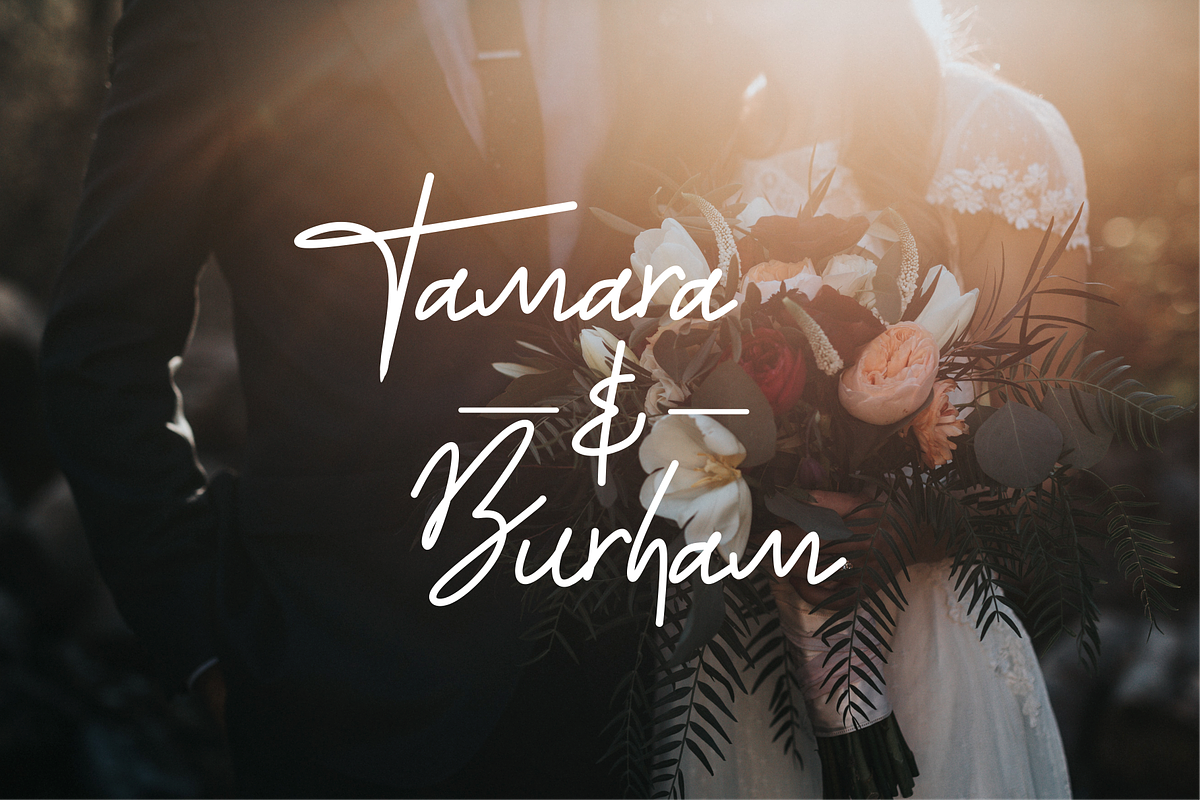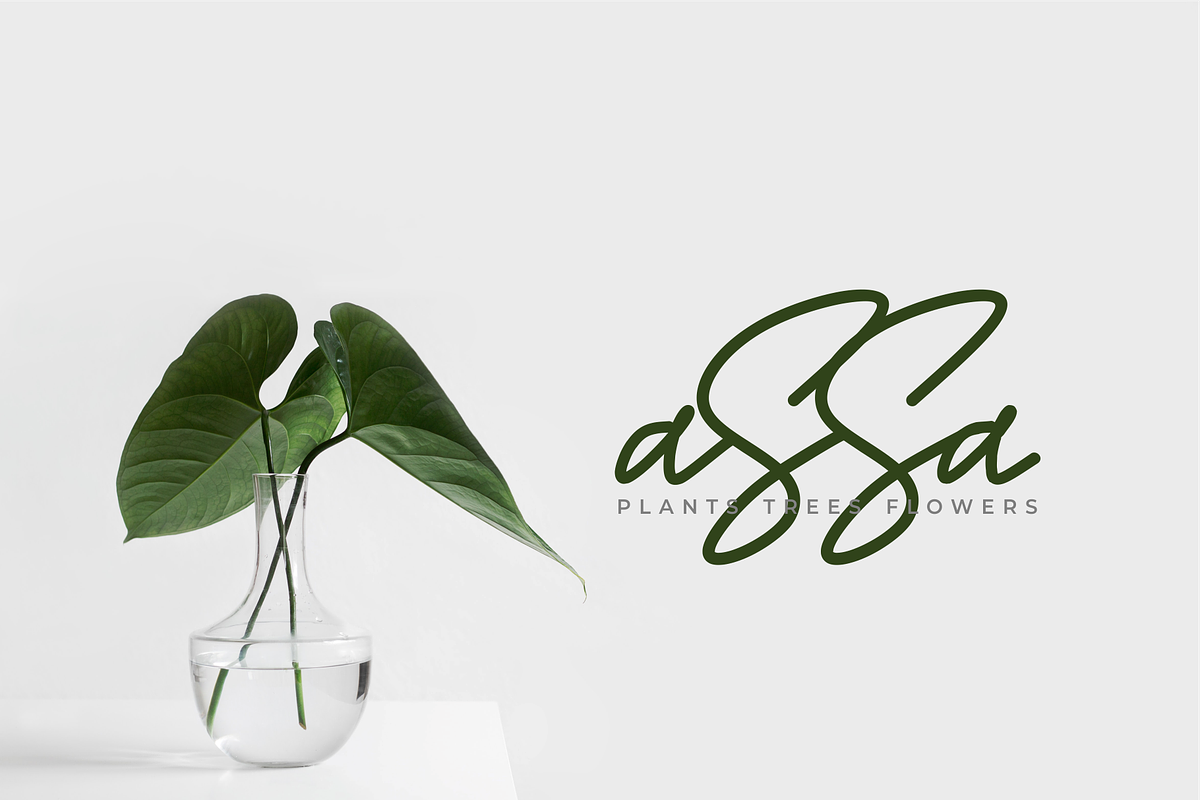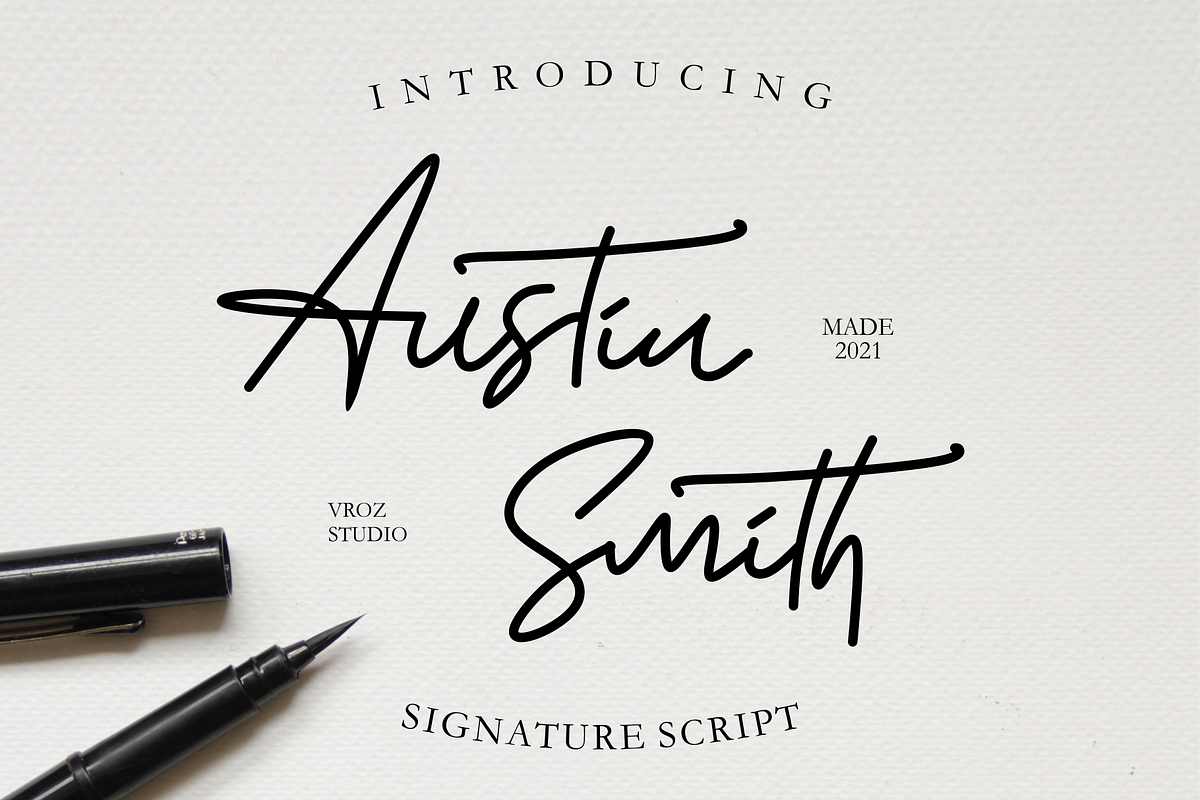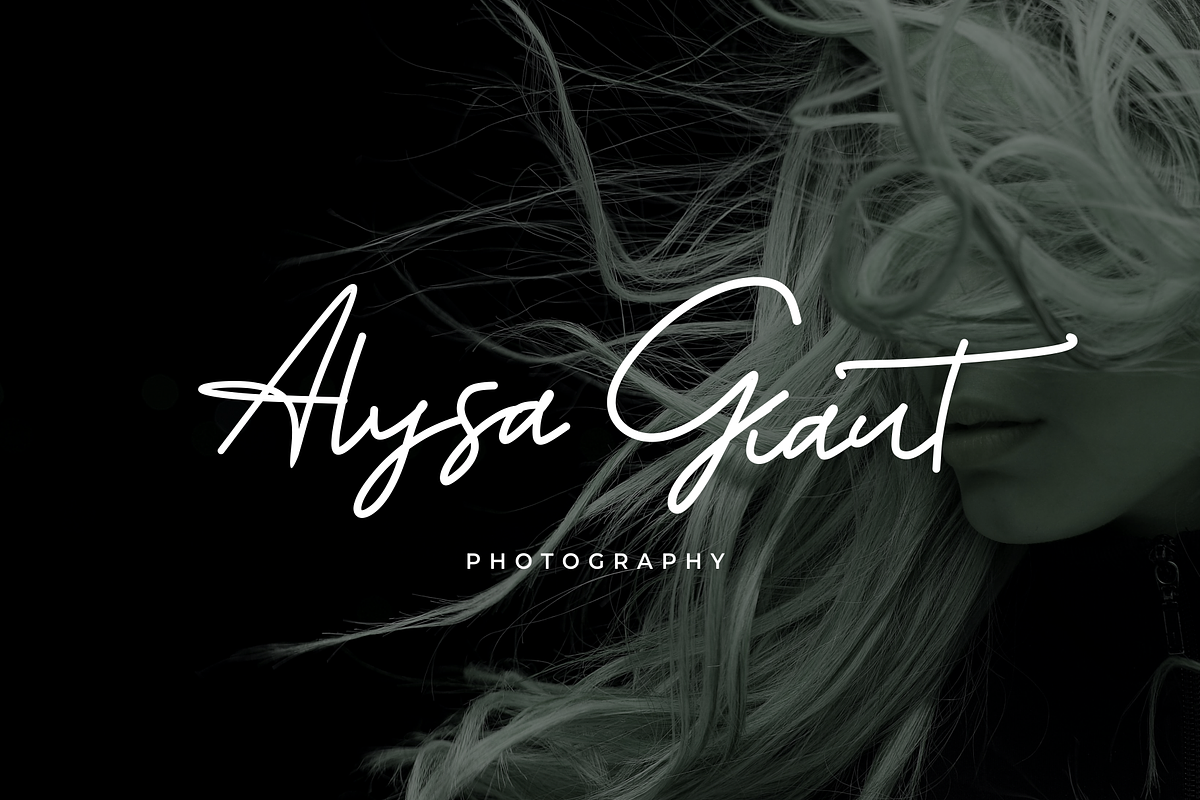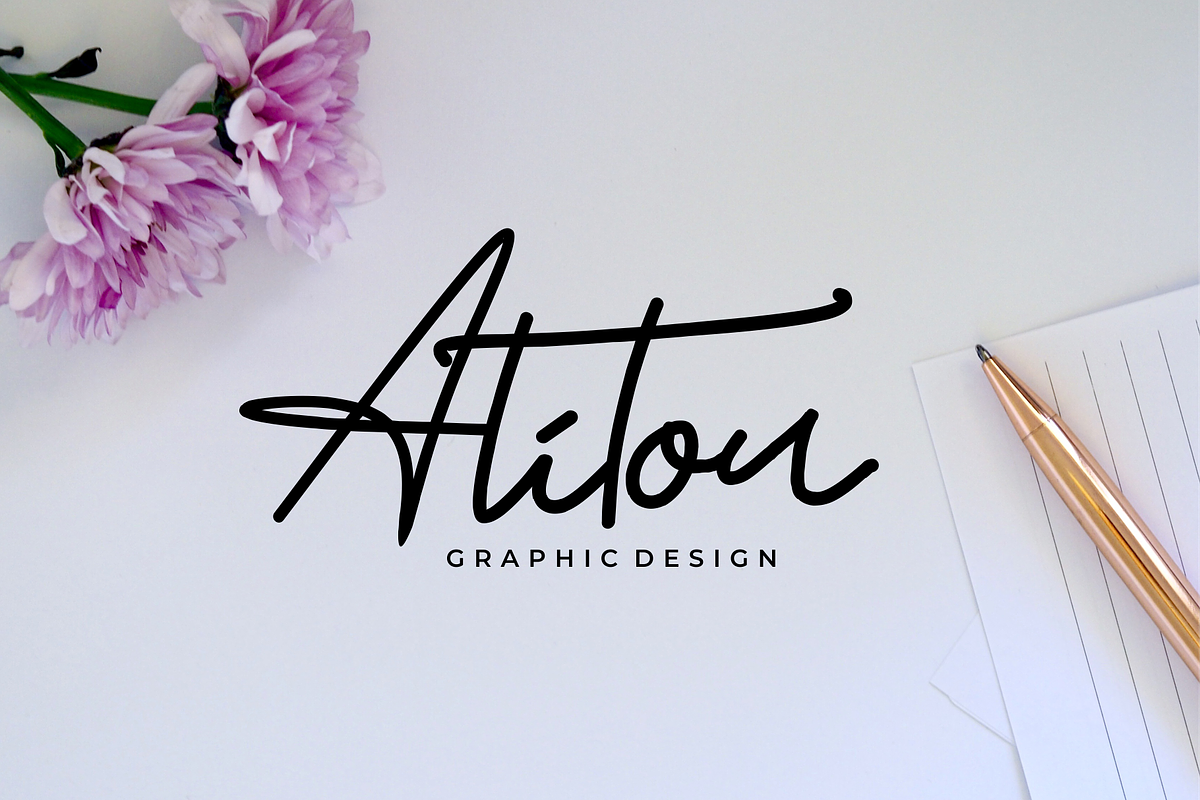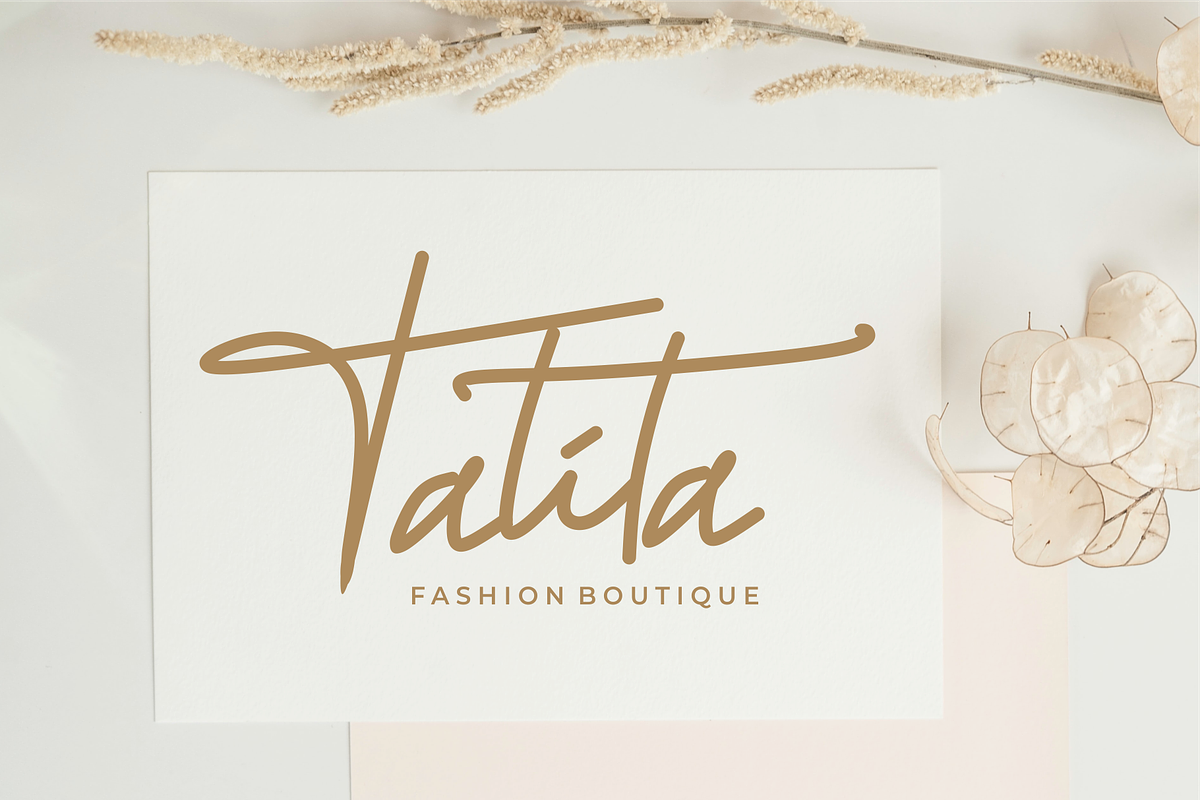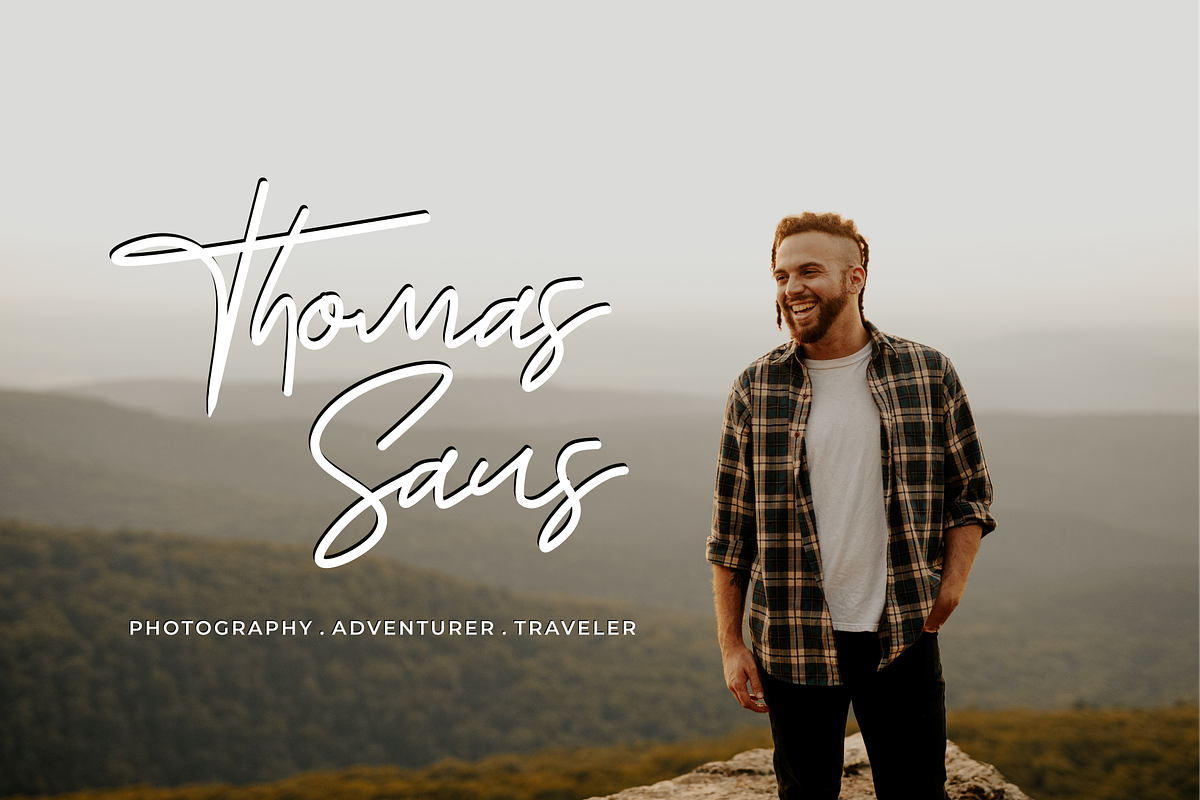
Austin Smith - Signature Script
Austin Smith Signature Script consisting of a fashionable sophisticated signature-style script with its own unique curves and an elegant inky flow
Austin Smith Signature Script font suitable for branding, signature, wedding invitations, promotion, product packaging, and other needs. This font is modern, simple, but still authentic. You will get full set of lowercase and uppercase letters, numerals and punctuation